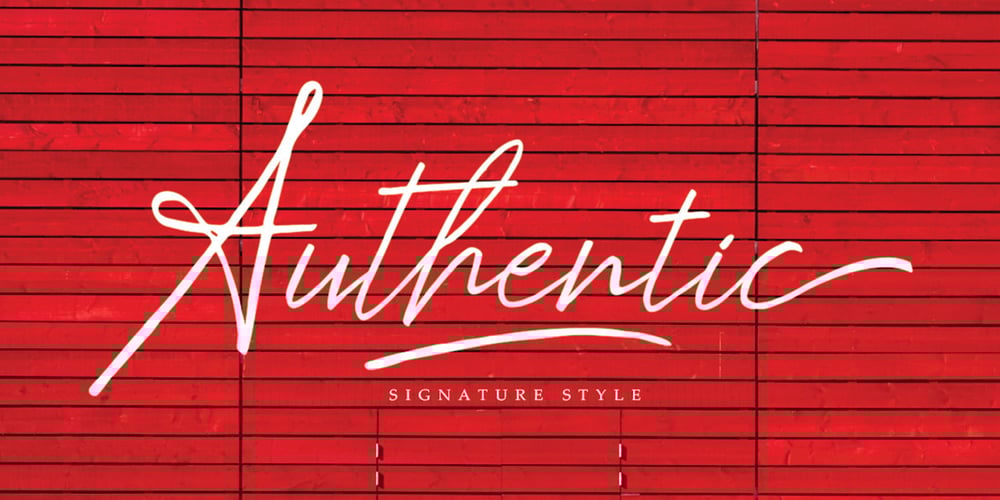
Kingstoner Font Font Family was designed by Mulkan Nazir and published by Great Studio. Kingstoner Font contains 3 styles and family package options. Kingstoner Font is handmade signature style font with stunning characters. Ideal for logos, name tag, handwritten quotes, product packaging, merchandise, social media & greeting cards. It contains a full set of lower & uppercase letters, a large range of punctuation, numerals, and multilingual support. The font also contains several ligatures and contextual alternates for lower case characters, accessible in the Adobe Illustrator Glyphs panel, or under Stylistic Alternates in the Adobe Photoshop OpenType menu. But If you don’t have any opentype specific software, you can still use Kingstoner Font as is with its standard lowercase and uppercase letters. If you have any question, don’t hesitate to contact me by email Greatstudio92@gmail.com. Thank you!